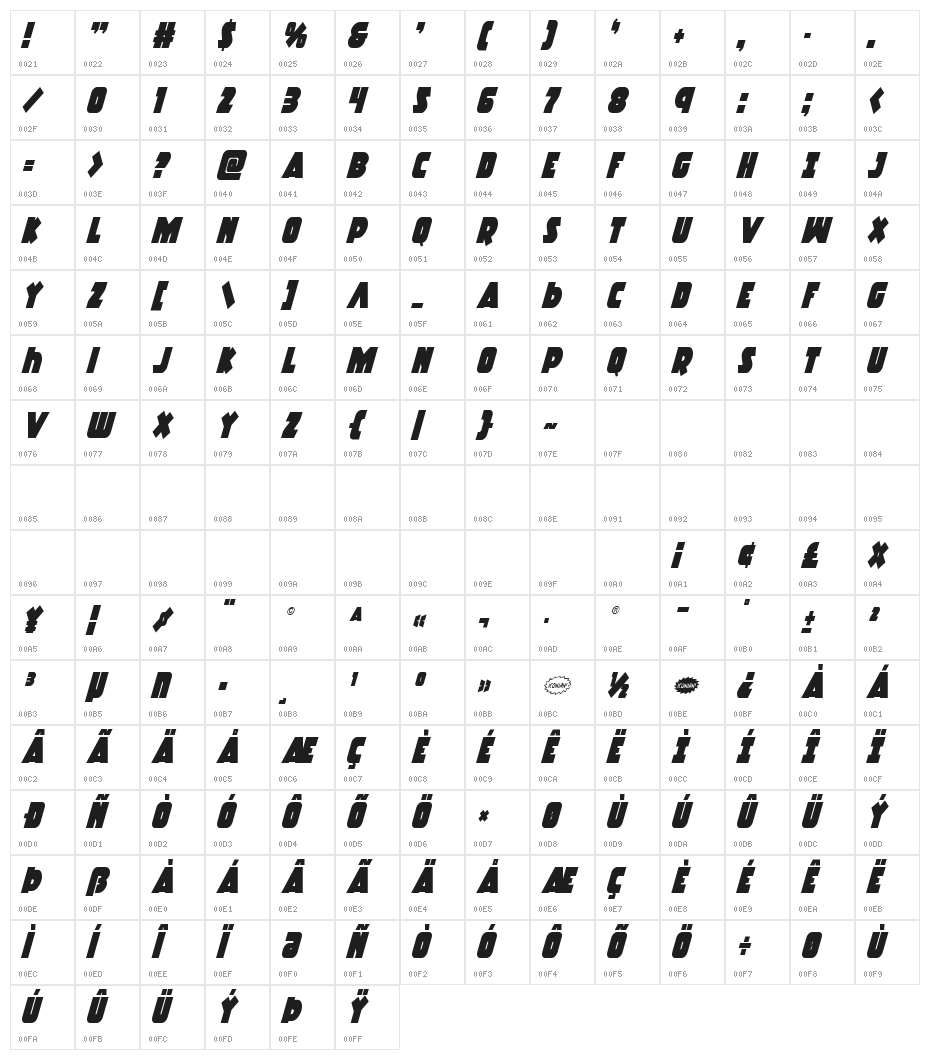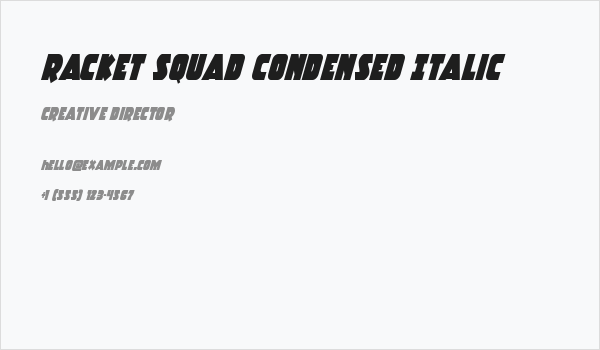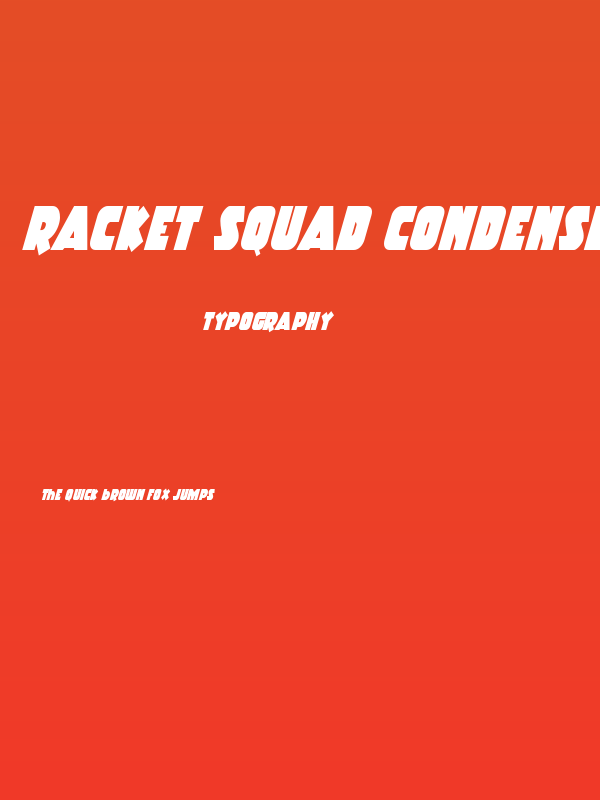
Racket Squad Condensed Italic Font
Racket Squad Condensed Italic Description
This font features a bold and dynamic style with a condensed and italicized form. The characters are sharply angled, giving them a sense of movement and energy. The uppercase and lowercase letters maintain a consistent weight and width, creating a cohesive look. The numbers and special characters are designed with the same boldness and angularity, ensuring uniformity across all glyphs. The font's strong presence makes it ideal for attention-grabbing designs.
| Proposed Projects | Ideal for sports branding, action movie posters, dynamic advertisements, and edgy graphic designs. |